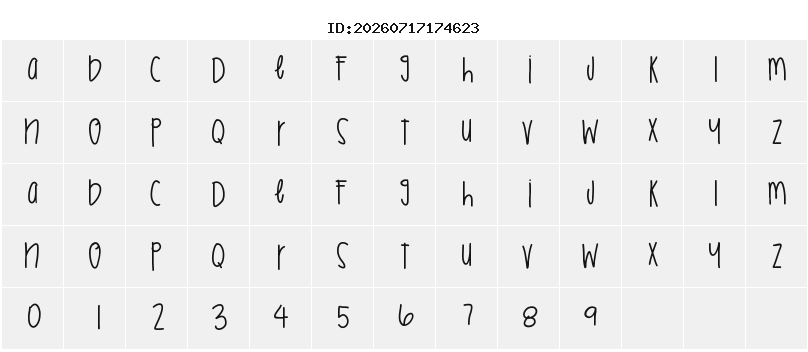
BeyondHyped Preview
• Font Name: BeyondHyped
• Full Font Name: BeyondHyped
About BeyondHyped.ttf
BeyondHyped.ttf is a modern, elegant sans-serif font designed for ultimate readability and visual harmony. Perfect for branding, headlines, web design, and print materials.